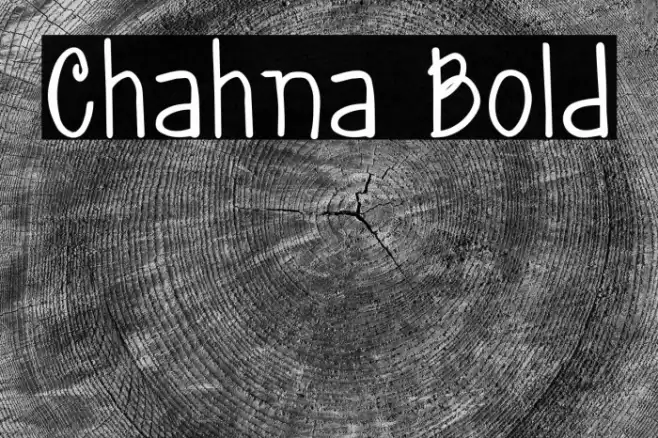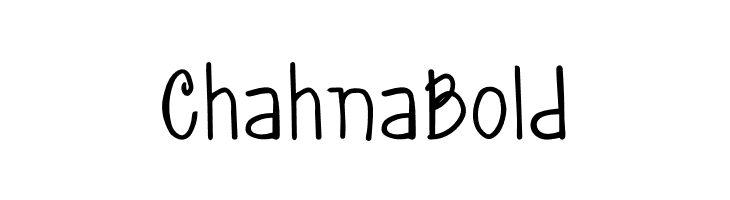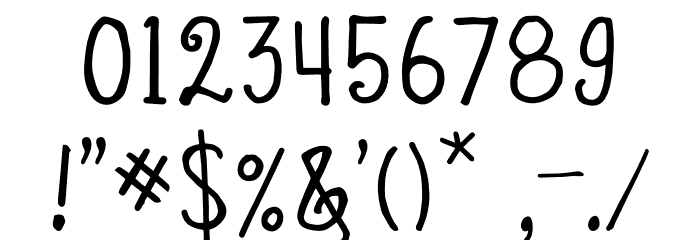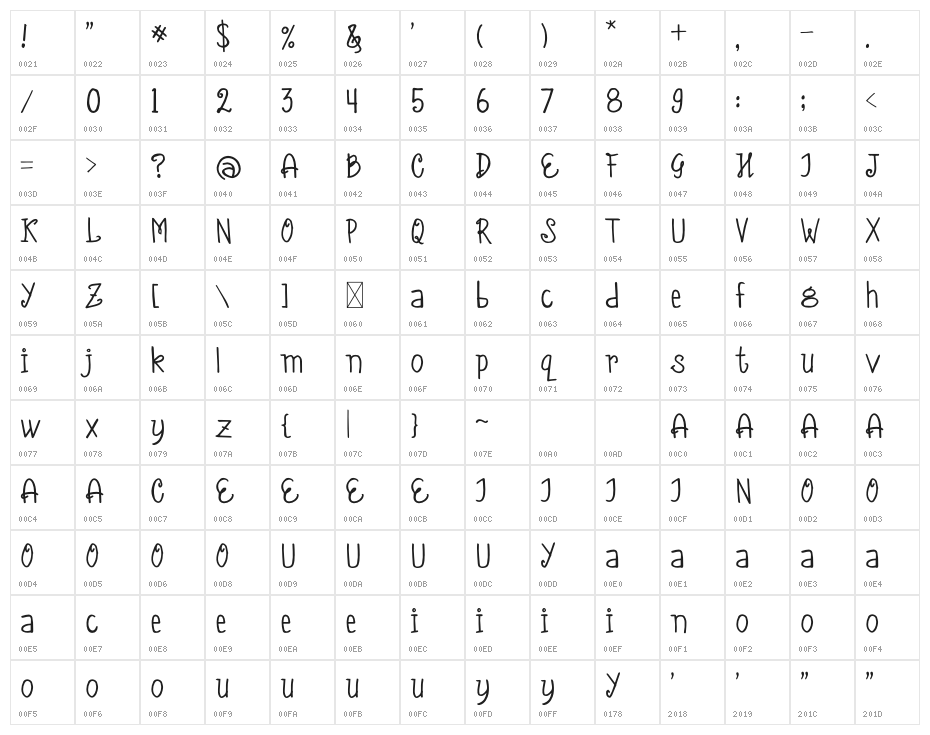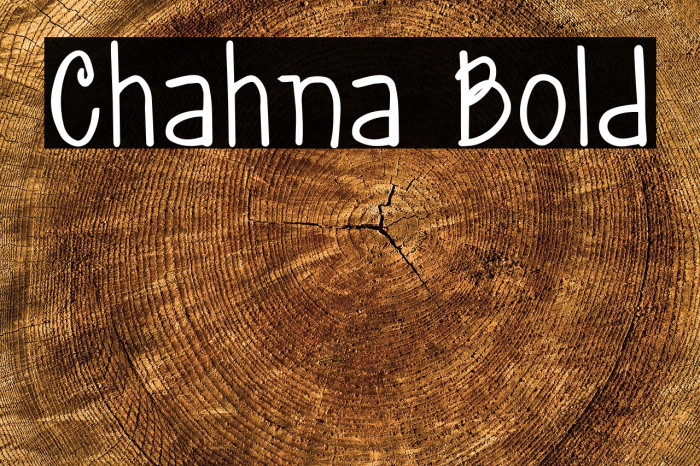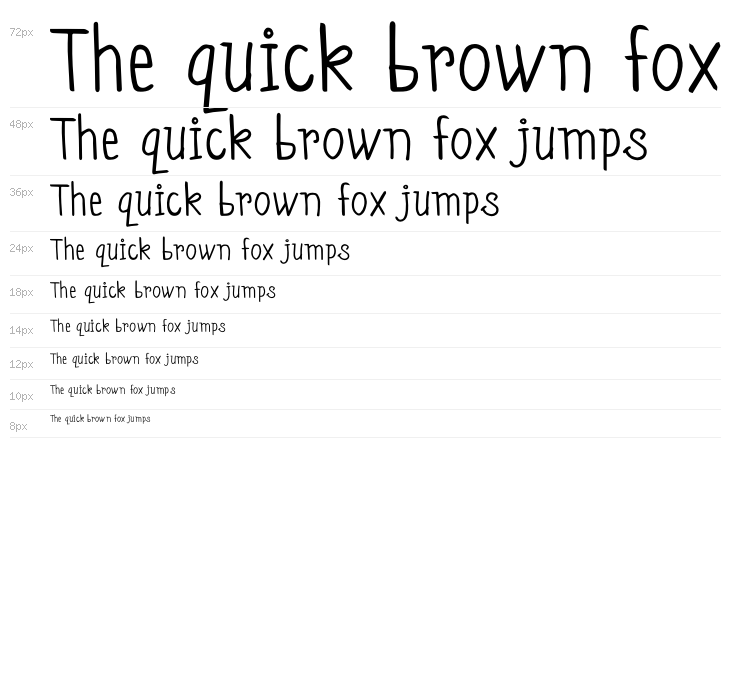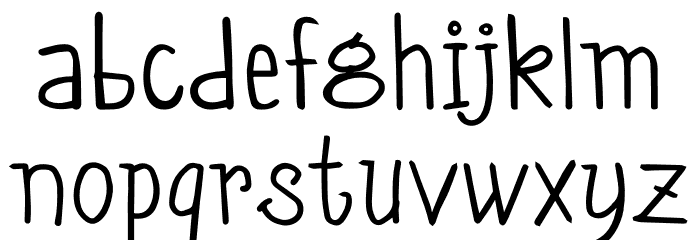
Chahna Bold Fuentes
Chahna Bold Descripción
- ( Introducing Chahna, a cool and fresh handwritten font. Designed to suit the designer's needs of a font that can bring joyful feelings of children. You can use it on various projects such as invitation cards, children books, restaurant menus, etc. It come FREE )